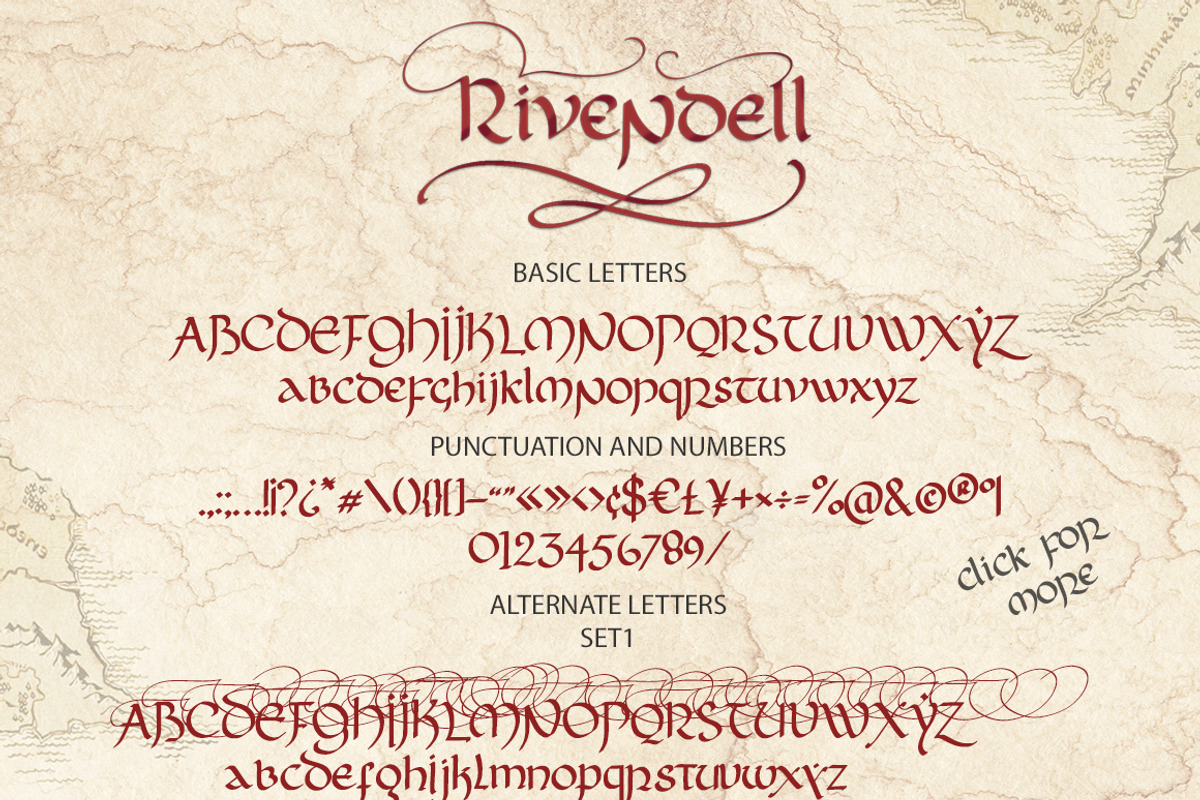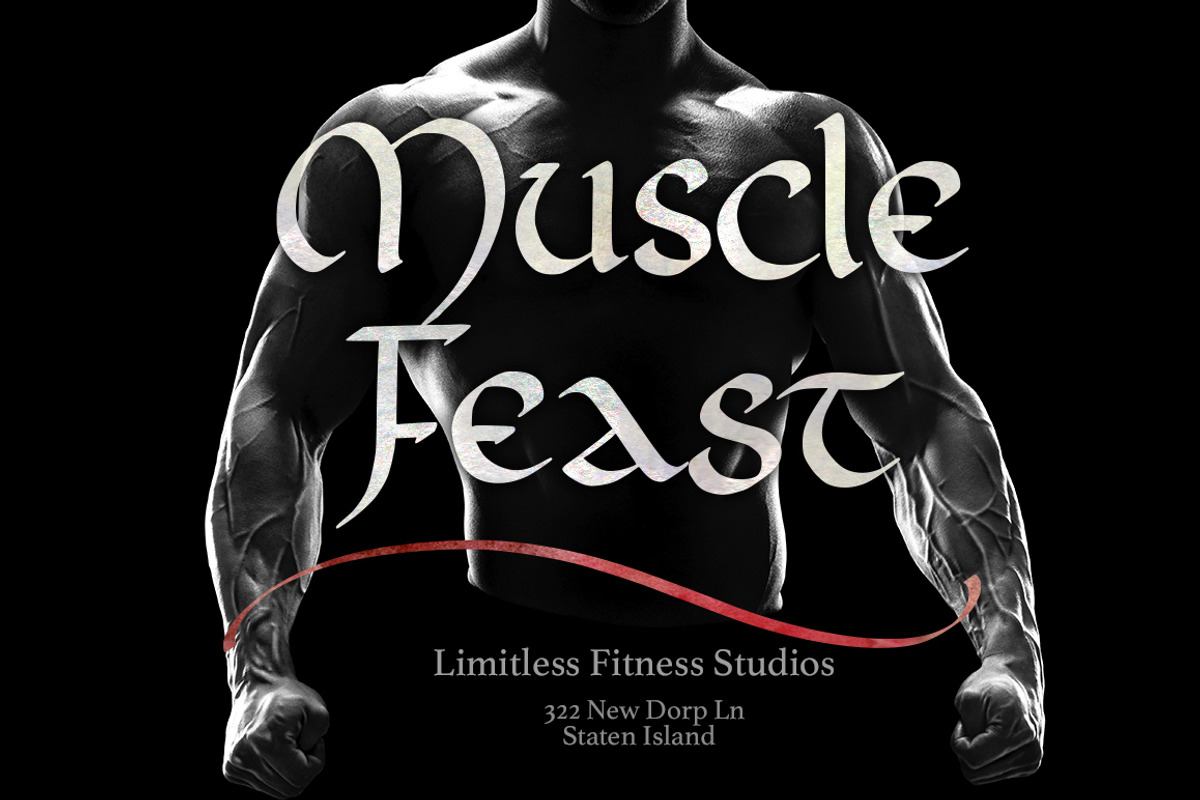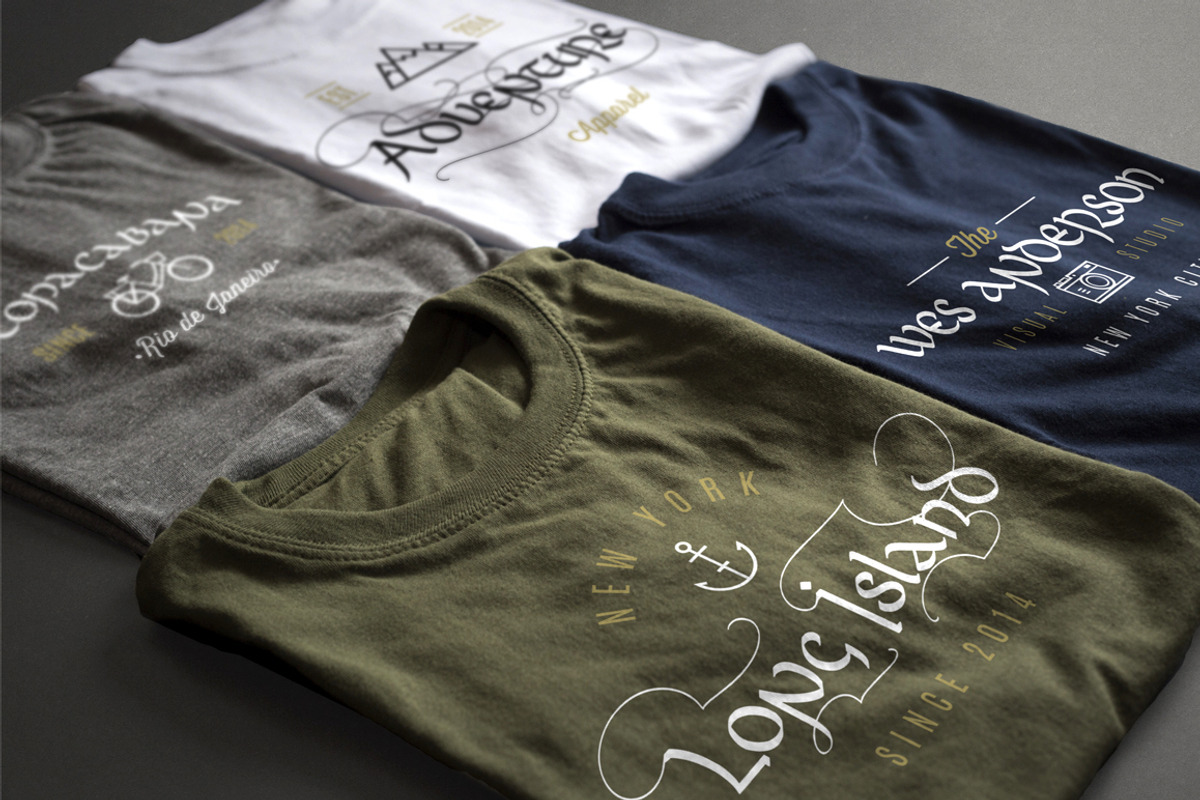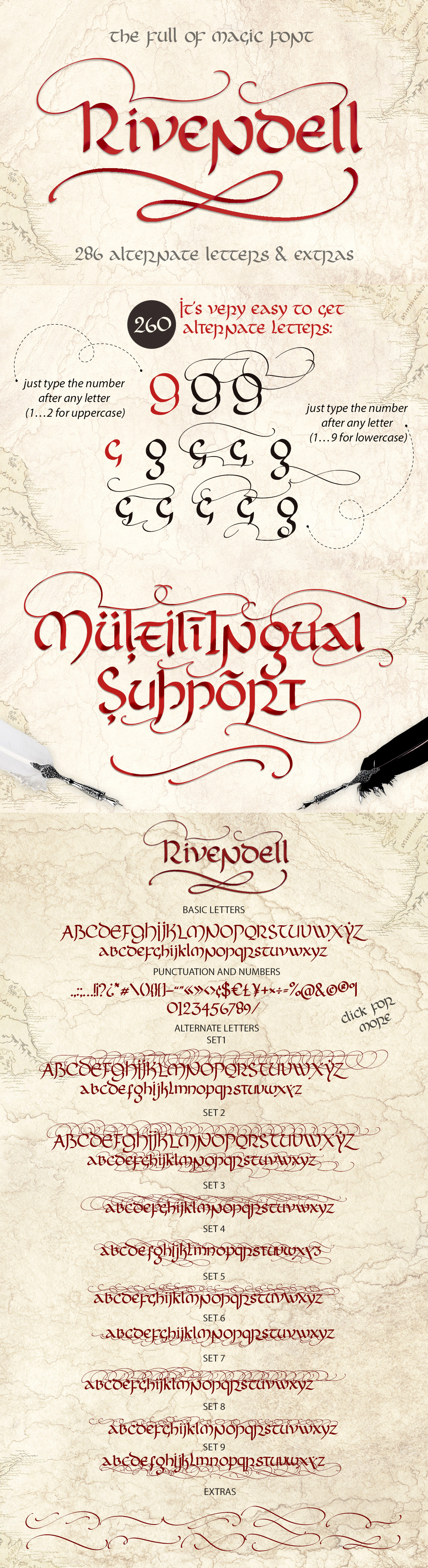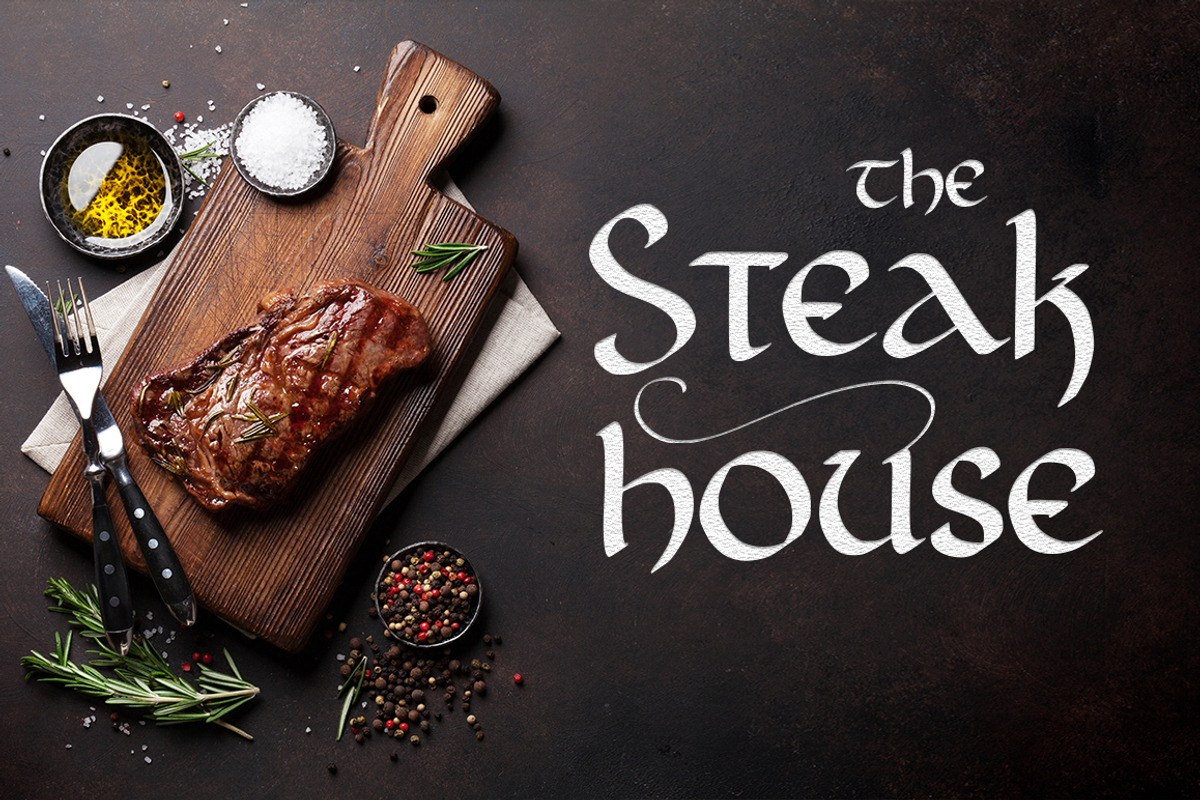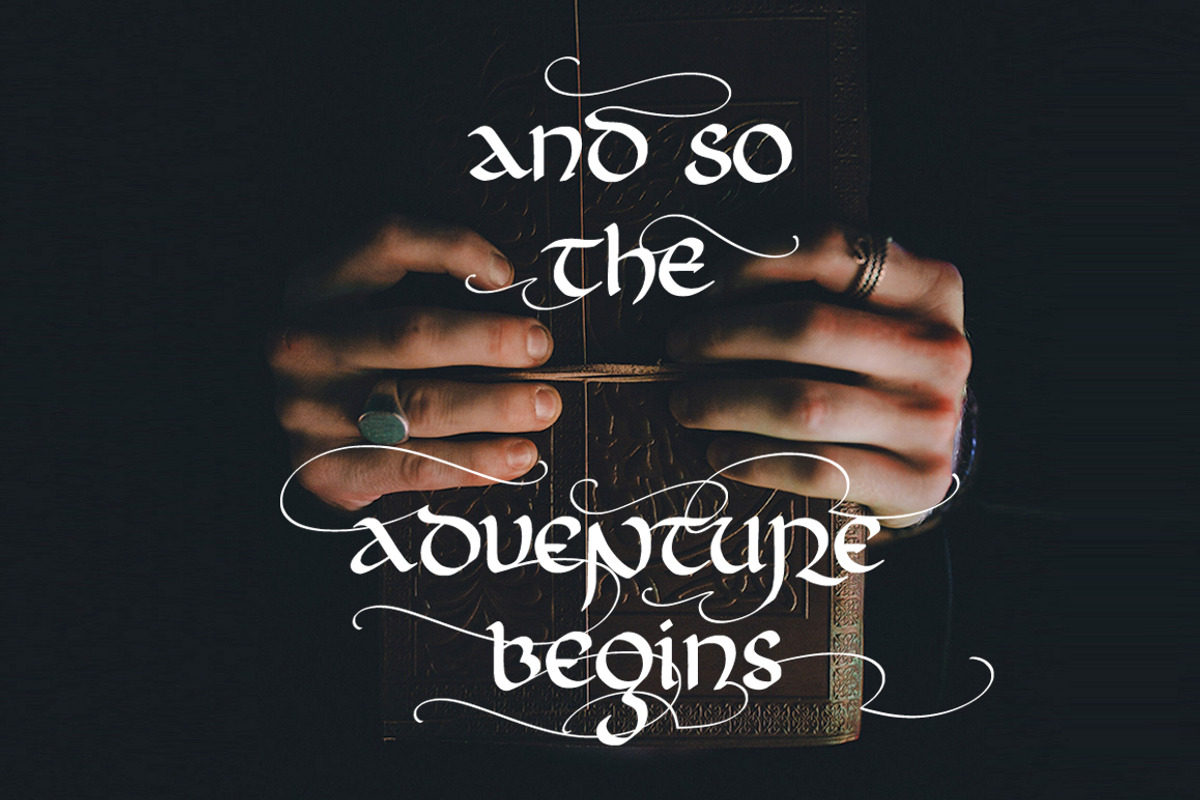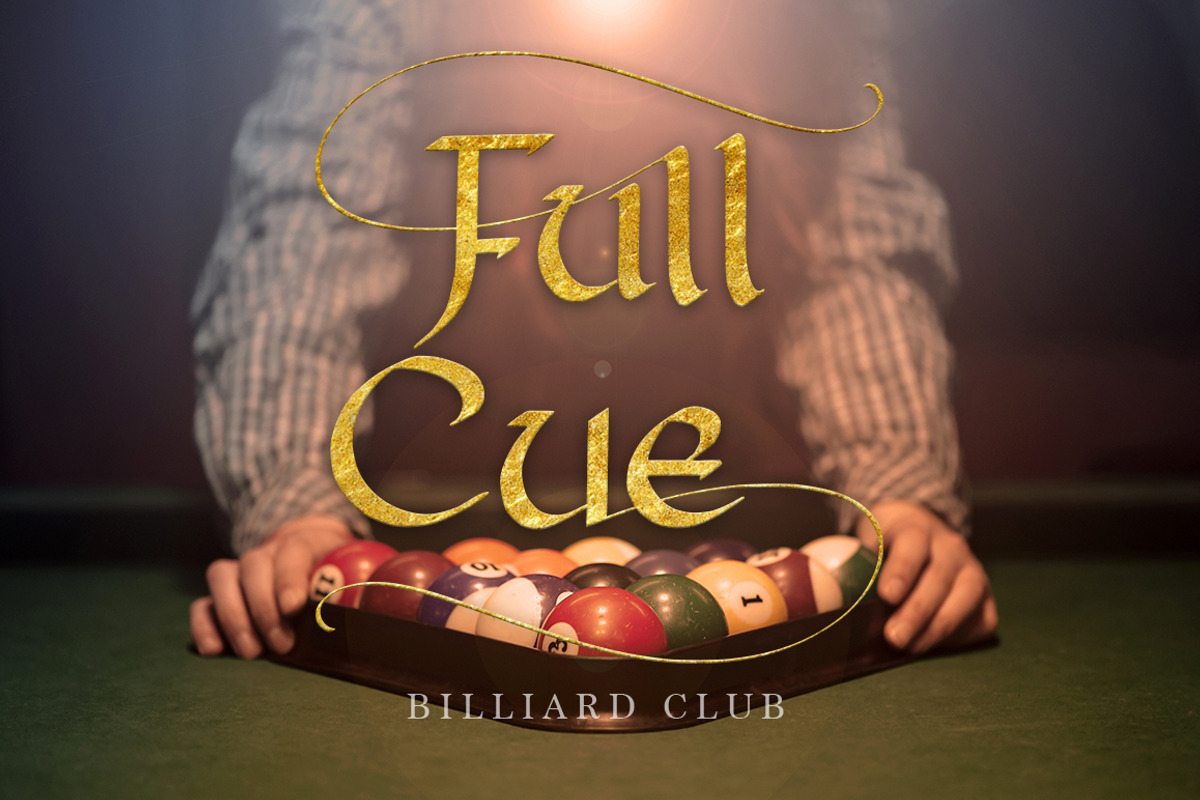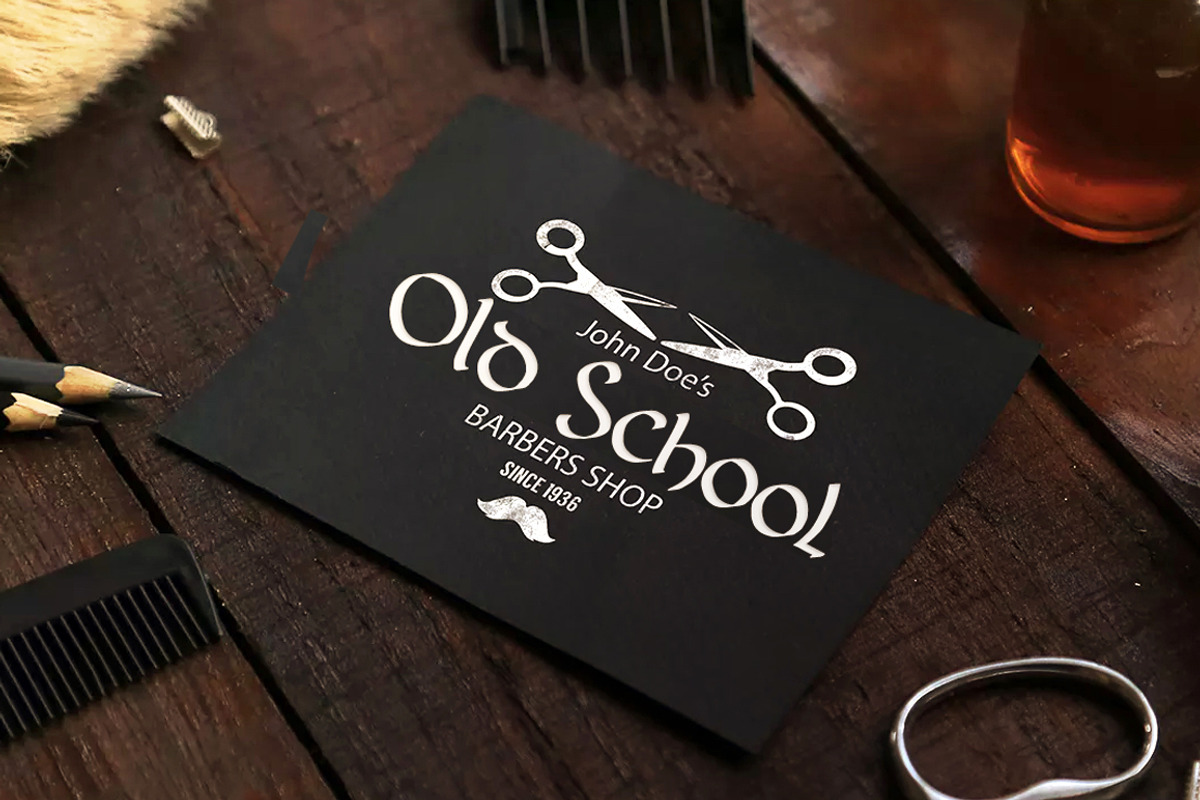
Rivendell. The full of magic font.
I'm happy to introduce you Rivendell font with classic, elegant, vintage, and magic feel. It’s perfect tool to create amazing designs, like vintage cards, modern t-shirts, retro posters, unusual mugs, luxury branding materials, and any other projects you are working on.
Rivendell is a symbiosis of many styles of writing - Uncial, Caroline minuscule and others. It’s a beautiful blackletter font with lots of OTF, which comes with 260 alternate letters to create real typography magic.
2 variants of alternate letters for the uppercase and 9 variants of alternate letters for the lowercase, make this font an unique tool for creating amazing handdrawn texts, richly decorated with swashes.
It’s very easy to get alternative glyphs:
just type the number after any letter (1…9 for lowercase and 1…2 for uppercase)
You can still use the Glyphs panel. You’ll see there 260 stylistic alternate glyphs and beautiful extra swashes.
It has multilingual support, which include Western European, Central European and South Eastern European languages. Please type characters in text box below to check any characters you need.